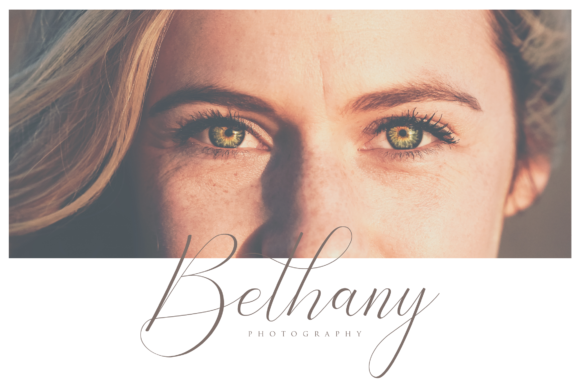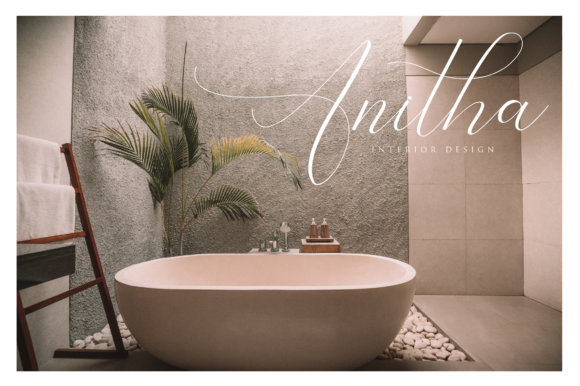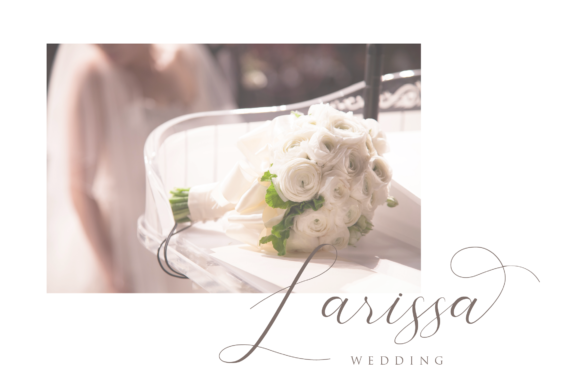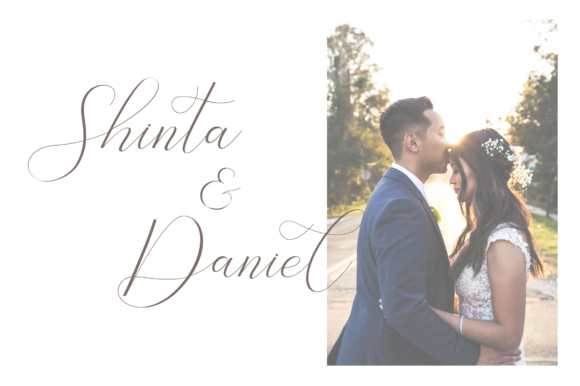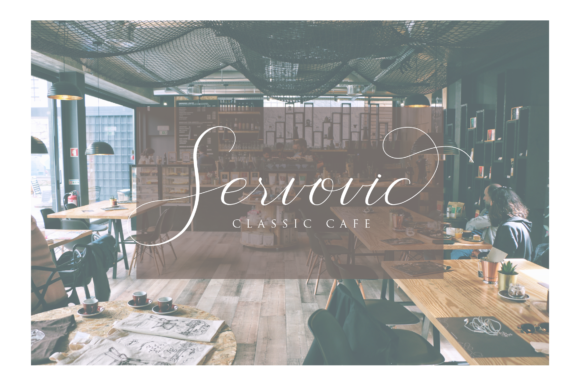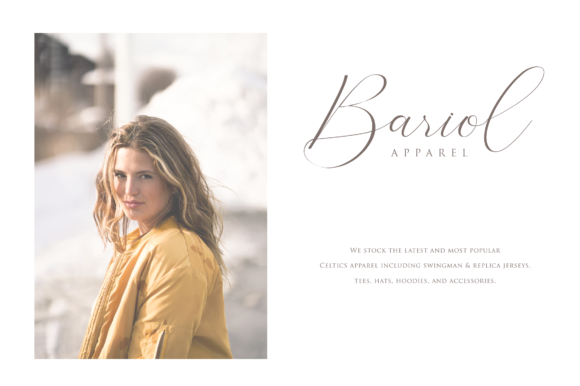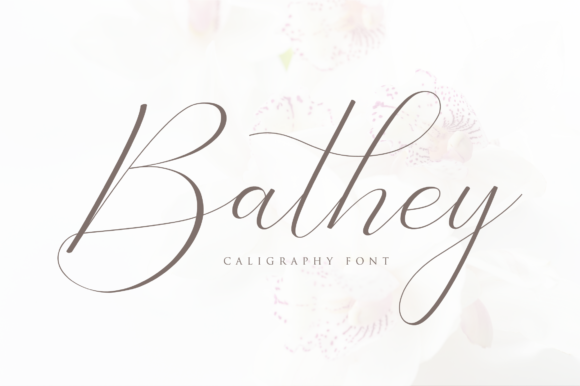
Bathey Font: Elevate Your Designs with Elegant Modern Calligraphy
In the world of typography, few fonts manage to capture the essence of elegance and sophistication as effectively as the Bathey Font. This modern calligraphy typeface has been gaining popularity among designers and crafters alike, and for good reason. With its flowing lines and personal touch, Bathey Font is the perfect addition to any design project that aims to stand out from the crowd.
The Beauty of Bathey Font
The Bathey Font is characterized by its elegant letters, which exude a sense of refinement and luxury. Each letterform is carefully crafted to create a sense of fluidity and movement, making it perfect for designs that require a touch of sophistication. Whether you’re working on a branding project, a wedding invitation, or a packaging design, Bathey Font is sure to add a level of elegance that will elevate your work to the next level.
What Makes Bathey Font Special?
So, what sets Bathey Font apart from other typefaces? Here are a few key features that make it a standout:
• Modern Calligraphy: Bathey Font is a modern take on traditional calligraphy, with a fresh and contemporary twist.
• Elegant Letters: Each letterform is carefully crafted to create a sense of elegance and sophistication.
• Personal Touch: Bathey Font adds a personal touch to your designs, making them feel more bespoke and unique.
• Versatile: Bathey Font can be used in a variety of design projects, from branding and advertising to packaging and stationery.
How to Use Bathey Font in Your Designs
Using Bathey Font in your designs is easy. Here are a few tips to get you started:
• Pair it with a sans-serif font: Bathey Font pairs beautifully with sans-serif fonts, creating a striking contrast that adds visual interest to your designs.
• Use it for headings: Bathey Font is perfect for headings and titles, where its elegant letters can really shine.
• Add a personal touch: Use Bathey Font to add a personal touch to your designs, whether it’s a handwritten note or a custom illustration.
Who Can Benefit from Bathey Font?
Bathey Font is a versatile typeface that can be used by a wide range of designers and crafters, including:
• Graphic Designers: Bathey Font is perfect for graphic designers who need a elegant and sophisticated typeface for their branding and advertising projects.
• Stationery Designers: Bathey Font is a great choice for stationery designers who want to create beautiful and bespoke stationery sets.
• Wedding Designers: Bathey Font is a popular choice for wedding designers who want to create elegant and romantic wedding invitations and stationery.
• Crafters: Bathey Font is also perfect for crafters who want to add a personal touch to their handmade projects, such as journals and cards.
In conclusion, Bathey Font is a beautiful and elegant modern calligraphy typeface that can add a personal touch to your designs. With its flowing lines and sophisticated letterforms, it’s perfect for designers and crafters who want to create stunning and bespoke designs. Whether you’re working on a branding project, a wedding invitation, or a handmade craft, Bathey Font is sure to elevate your work to the next level.